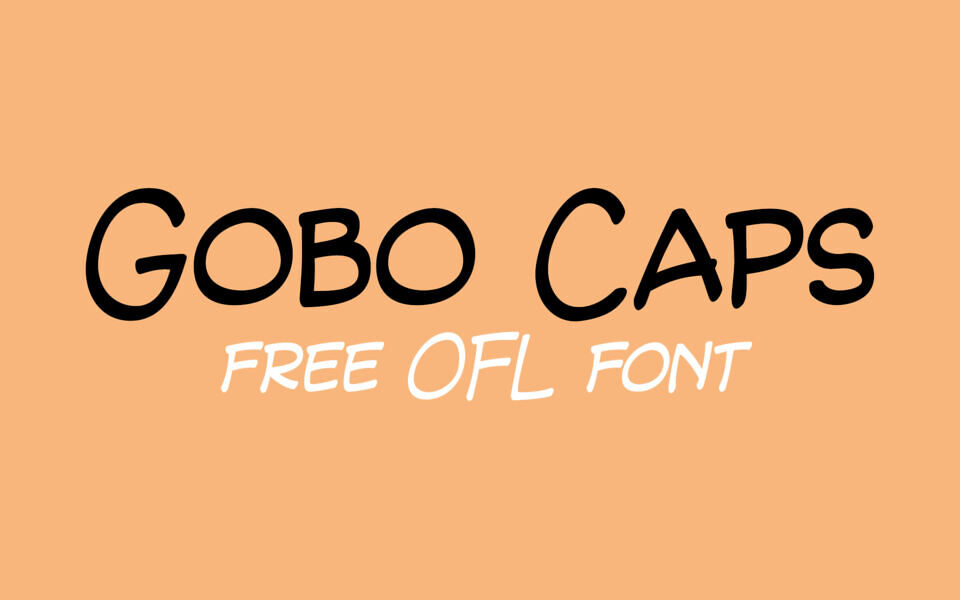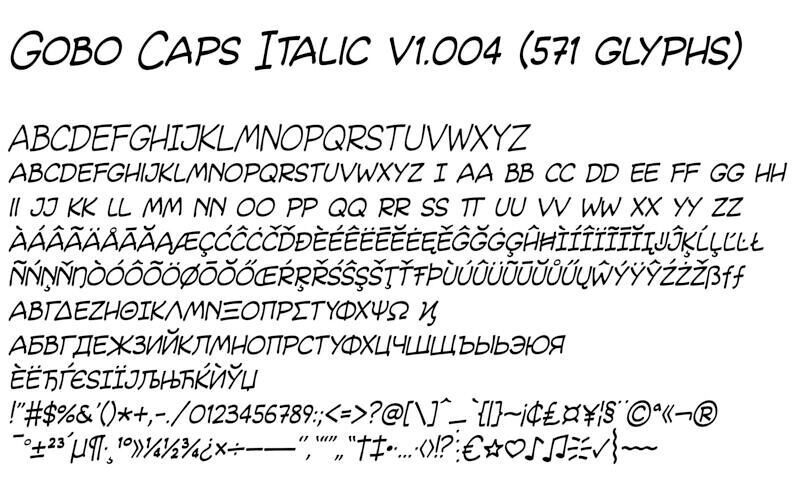
Gobo Caps is an OpenType Unicode font simulating professional manual lettering in the style typical of comics and graphic novels, specifically using a D-type Speedball calligraphic nib. It is free for both personal and professional use as detailed by the licence.
The current version provides the following weights: Regular and Italic, with full support of Unicode blocks “Basic Latin”, “Latin-1 Supplement”, “Latin Extended-A”, and basic support of “Greek and Cyrillic”.
In addition to standard Unicode glyphs Gobo Caps contains a full set of double letter ligatures for lower case basic Latin letters and a context-sensitive barred / barless I.